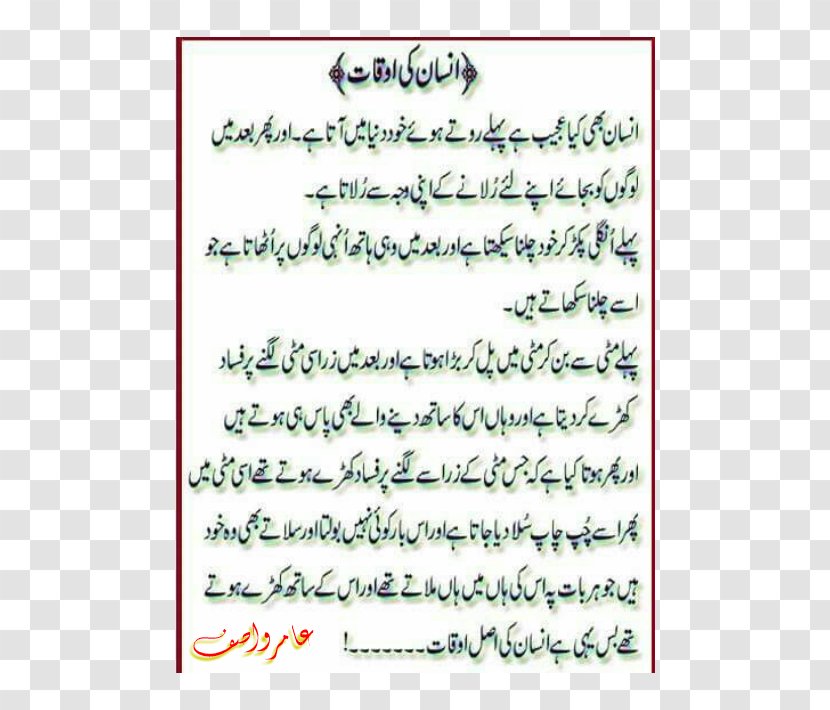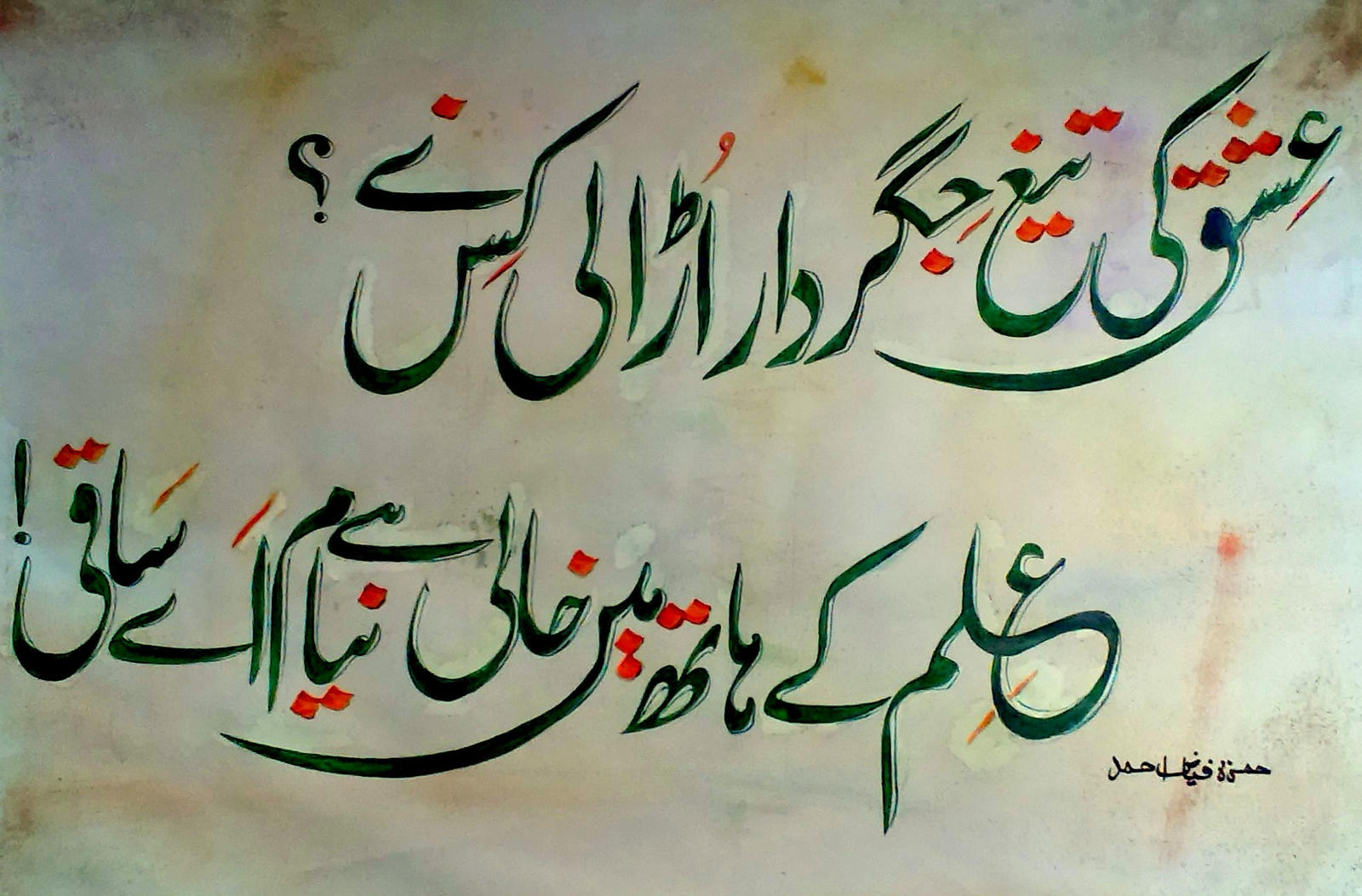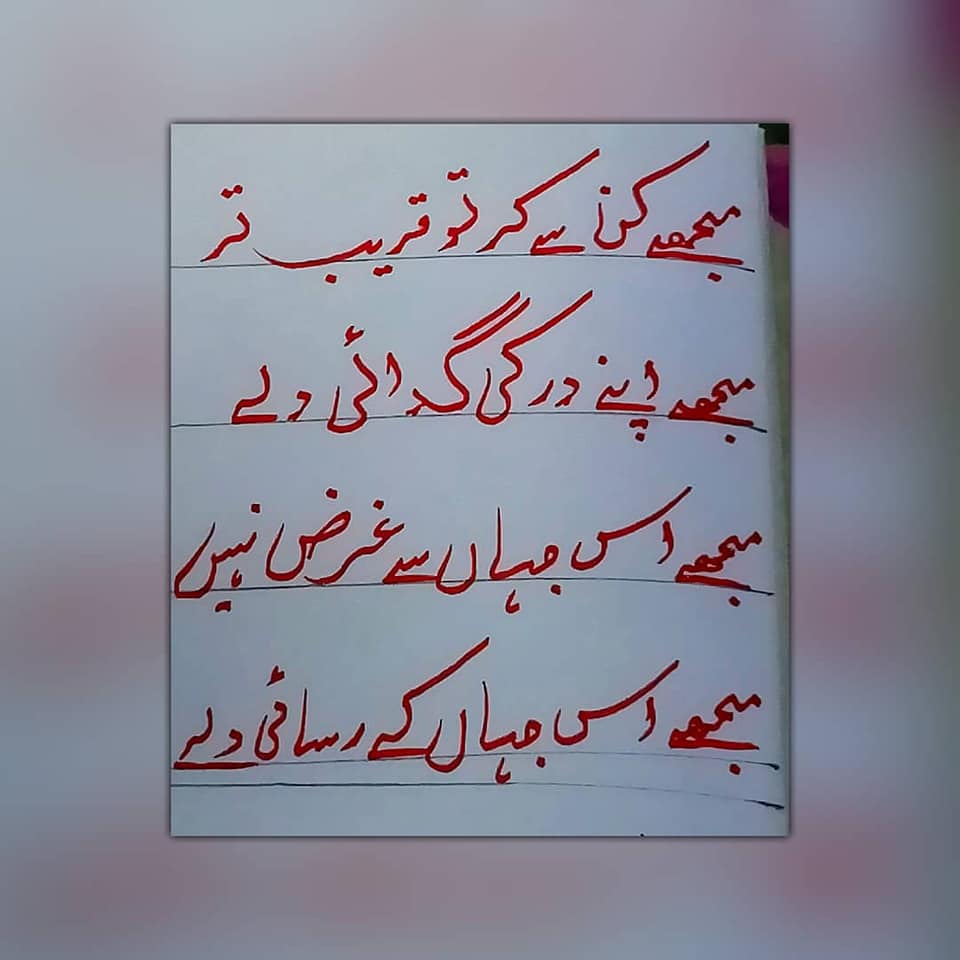
Calligraphy And Poetry By Sajjad Khalid Urdu Calligraphy Poetry Urdu Calligraphy Words Love Poetry Urdu
Mr Nasrullah Mehr is an award winning Pakistani calligraphic artist whose work has been published on several different platforms including newspapers magazines books and more.
Handwriting urdu calligraphy fonts. Worksheets for kids to learn with enjoyment we offer various worksheets to improve your kids writing skills urdu worksheets arabic worksheets math worksheets number trace trace alphabets trace words in english arabic urdu. See more ideas about urdu calligraphy islamic calligraphy art. These handwritten fonts are drawn using any kind of writing instrument like pen pencil felt marker brush etc.
Urdu Handwriting and Arabic Khushkhati. Calligraphy is an ancient writing technique using flat edged pens to create artistic lettering using thick and thin lines depending on the direction of the stroke. Nov 28 2018 - Explore Abdul Majids board urdu calligraphy on Pinterest.
The font has a 3D design and appearance and is set on a dark pink background which ups its attractiveness a great deal. This Arabic font template features a bold calligraphy font. How to Download Urdu Calligraphy Web Font Mehr-e-Nastaliq.
Hand writing Mutlu Category. Jameel Noori Nastaleeq Urdu Naskh Asiatype and Nafees Web Naskh. See more ideas about urdu calligraphy arabic calligraphy art islamic calligraphy.
As Urdu takes many words from Arabic and the Persian script of Urdu itself is an Arabic derivative it can be written in other calligraphic fonts like Diwani Tughra and Thuluth which are primarily used for Arabic calligraphy. Arabic fonts because of their distinctiveness and decorative appeal have driven the world of fonts. The font is customizable and you can work with it in Adobe Photoshop.
Cursive calligraphy fonts calligraphy writing styles fashion design logo modern arabic fonts persian writing arabic fonts online design certificate architecture names. Or perhaps we are used to reading Urdu in Nastaliq style. Jellyka - Estryas Handwriting Category.
The calligraphy font style is a writing style that has been used in holy scriptures letters texts other than that you can also use this pretty font generator if you want calligraphy style text in software such as what usually happens otherwise is that if you wish to use a particular font for software like. But Urdu looks best in Nastaliq. Basics of Urdu Handwriting with Faountain Pen.